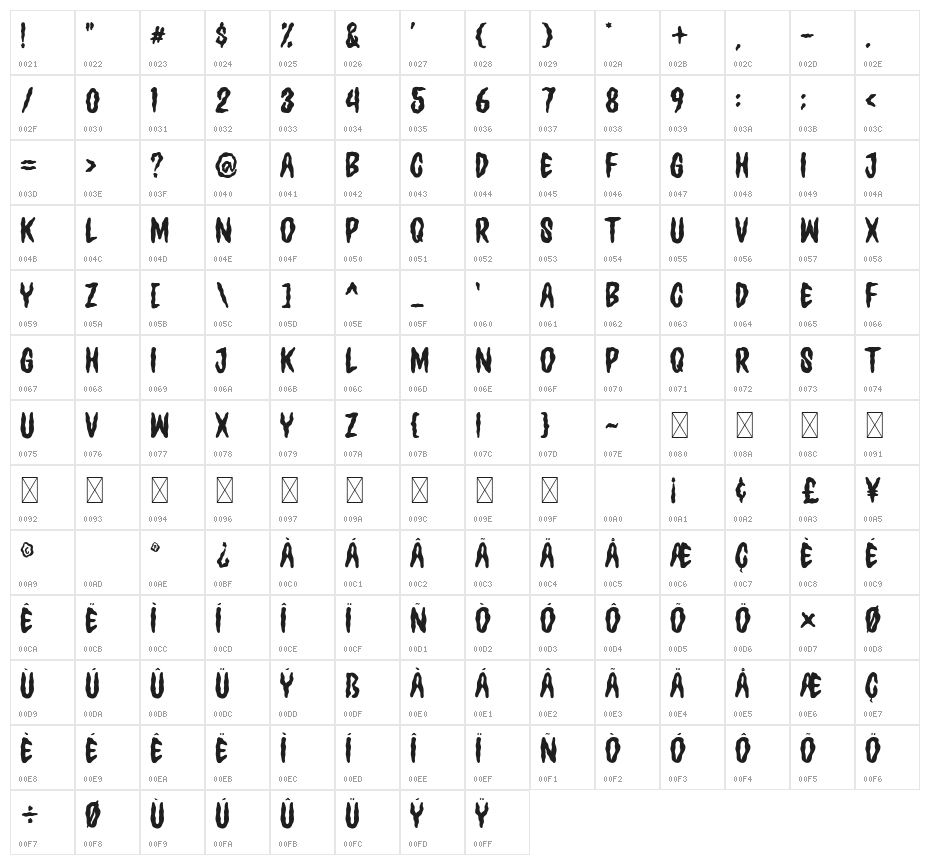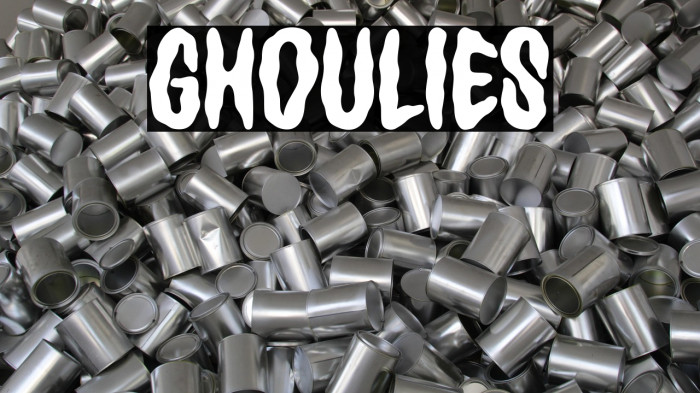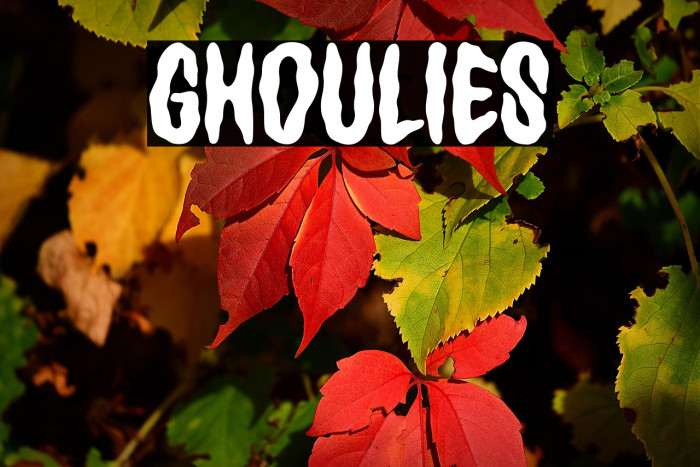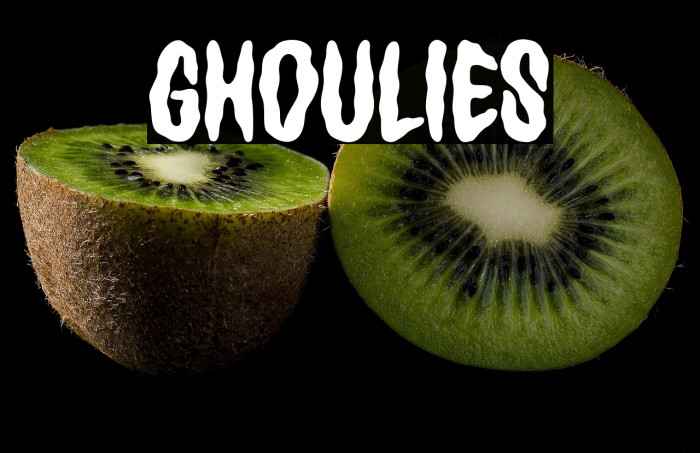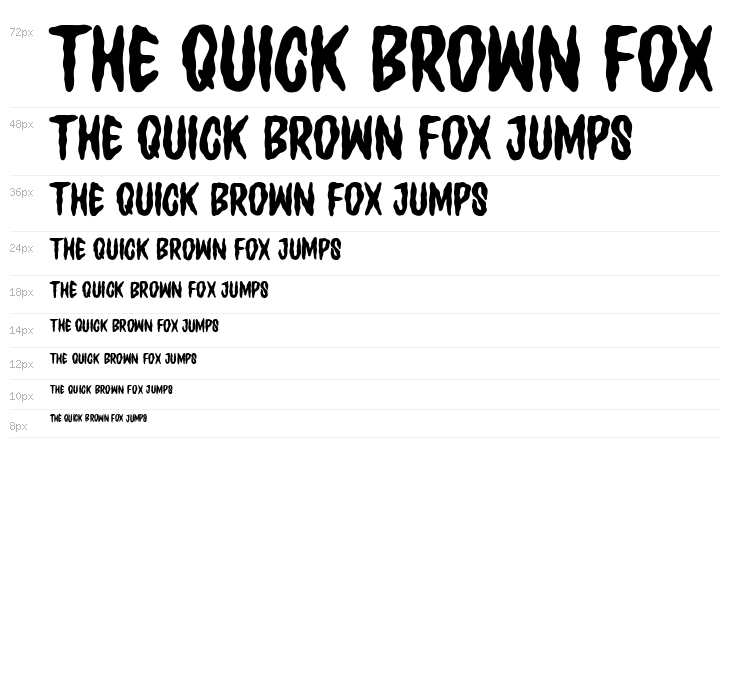
Ghoulies Font
Ghoulies Description
This font features a spooky, irregular design with a dripping effect that evokes a sense of horror and playfulness. The characters are bold and uneven, with jagged edges that give them a hand-drawn appearance. The uppercase and lowercase letters maintain a consistent style, while the numbers and special characters follow the same eerie theme. The font is perfect for Halloween-themed projects or any design that requires a touch of the macabre.
| Proposed Projects | Ideal for Halloween invitations, horror movie posters, themed party decorations, and spooky merchandise designs. |